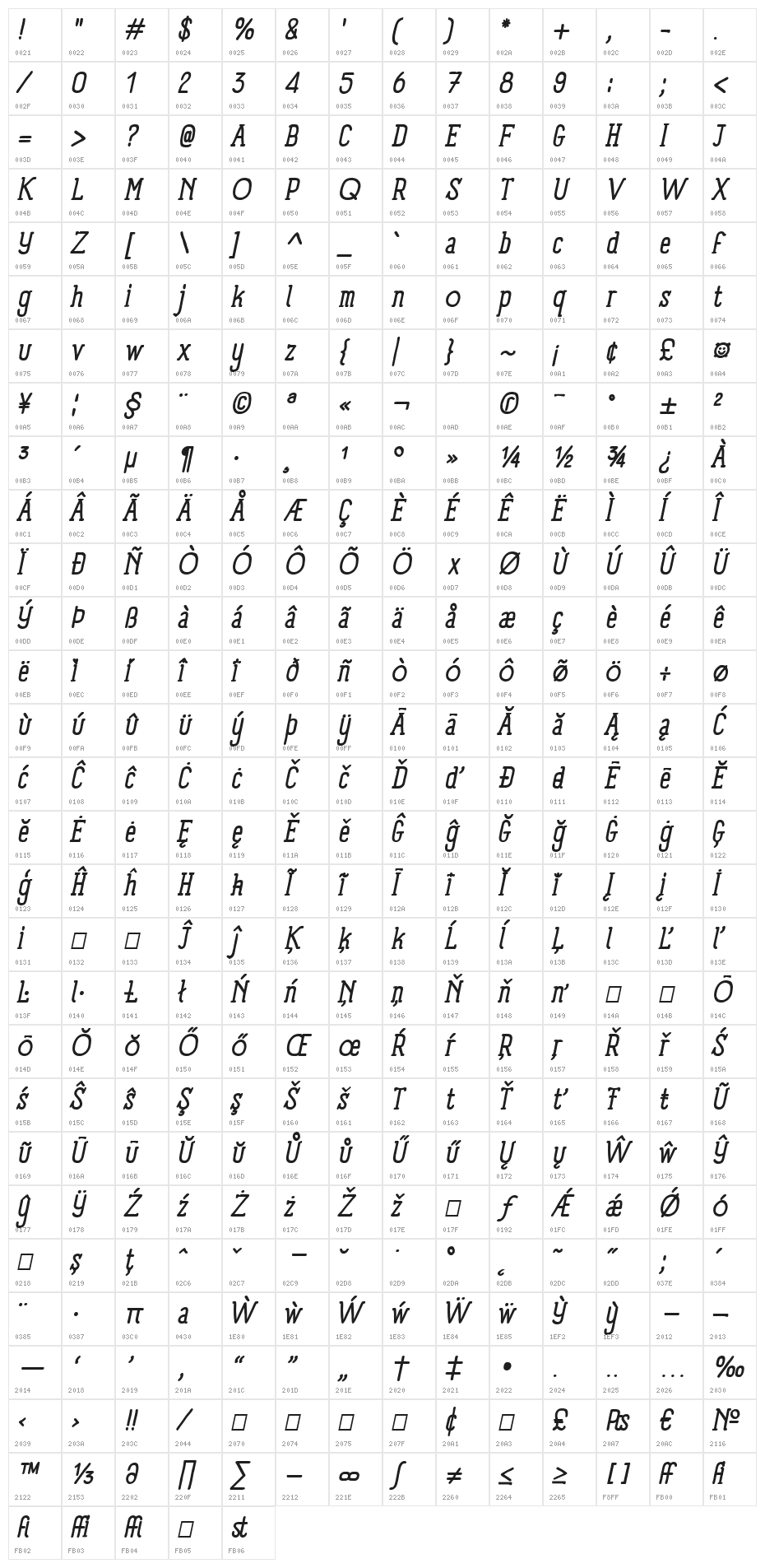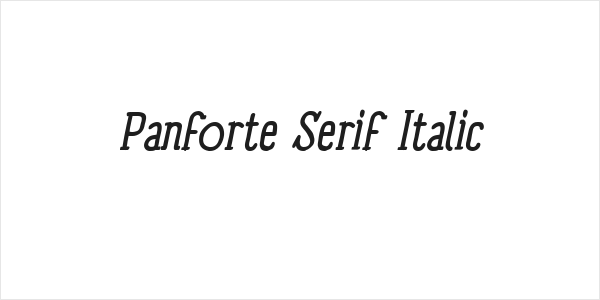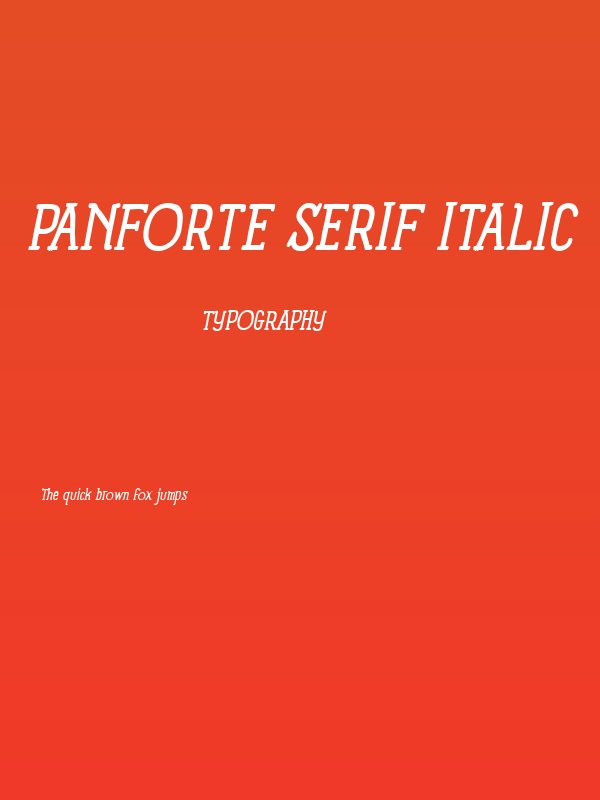
Panforte Serif Italic Font
Panforte Serif Italic Description
This font features a classic serif style with a distinct italic slant, giving it a dynamic and elegant appearance. The characters are well-defined with a moderate contrast between thick and thin strokes, enhancing readability while maintaining a stylish flair. The serifs are pronounced yet refined, adding a touch of sophistication. The overall design is balanced, with consistent character heights and smooth curves that flow seamlessly. The numerals are clear and legible, matching the style of the alphabet. Special characters are thoughtfully designed, integrating seamlessly with the rest of the typeface. This font is versatile, suitable for both formal and creative applications.